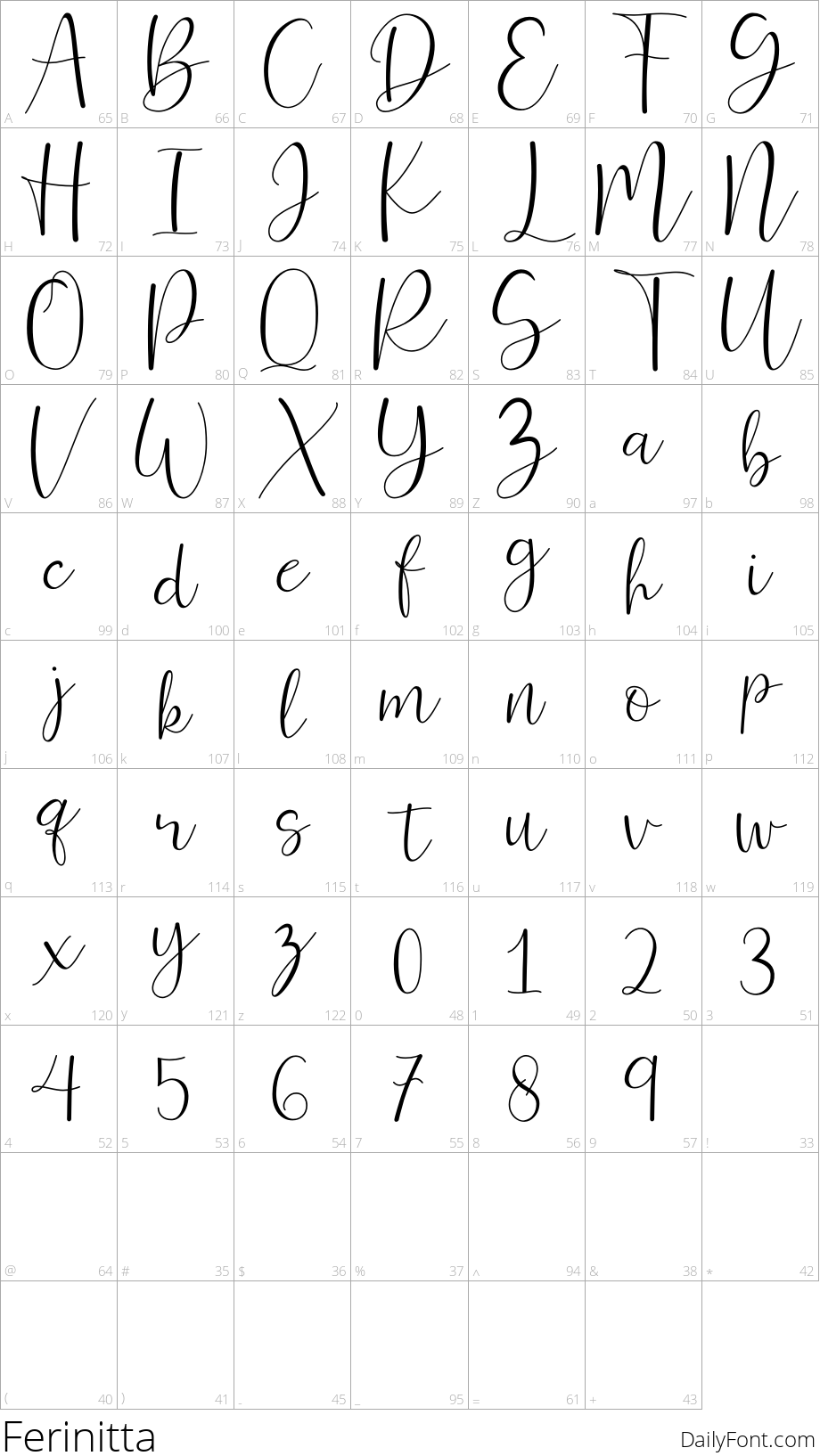
Ferinitta
Hearty Morning draws inspiration from timeless typography while injecting a distinctive flair into any design endeavor. This captivating handwritten font is ideal for headlines of any scale and seamlessly adapts to text blocks with diverse variations. Whether utilized in web design, print media, dynamic visuals, or beyond, Hearty Morning exudes an unparalleled charm, ensuring a visually stunning presentation across all mediums.